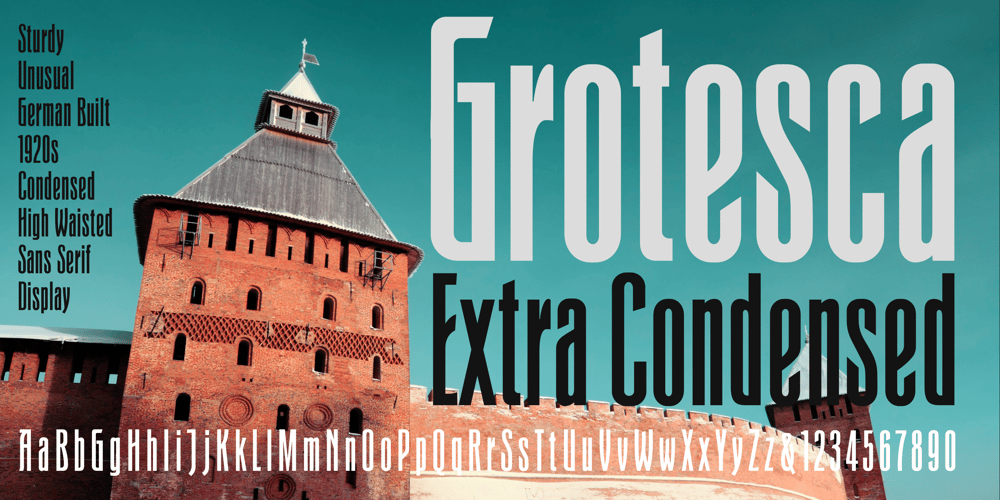
Grotesca Font Family was designed by Richard Gans and published by GroupType. Grotesca contains 1 styles and family package options. Grotesca Extra Condensedâ„¢ defines the term “”extra condensed””. With some unusual design quirks, this sturdy design has roots in styles popular in 1920s Germany. First brought to market by the Fundicion Tipografica Richard Gans type foundry (1888-1975) in Spain, the designer of Grotesca is unknown and the font was formerly sold only in Spain.